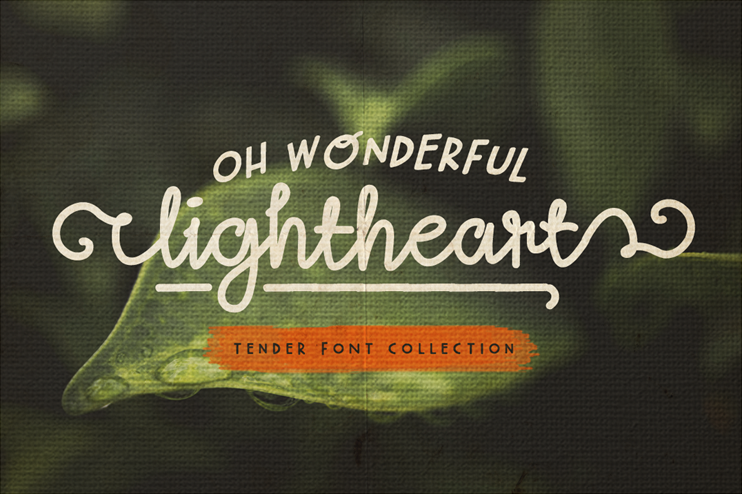
Purchase the license for commercial use here: https://sellfy.com/p/iDHx/ Comes with a Sans Serif font called Oh Wonderful. Lightheart - with regular and script versions. The even baselines and nice curves make it the Lightheart. Made to provide a simple, basic output with a great appeal. The swashes are found on these keys: (), {}, <. |